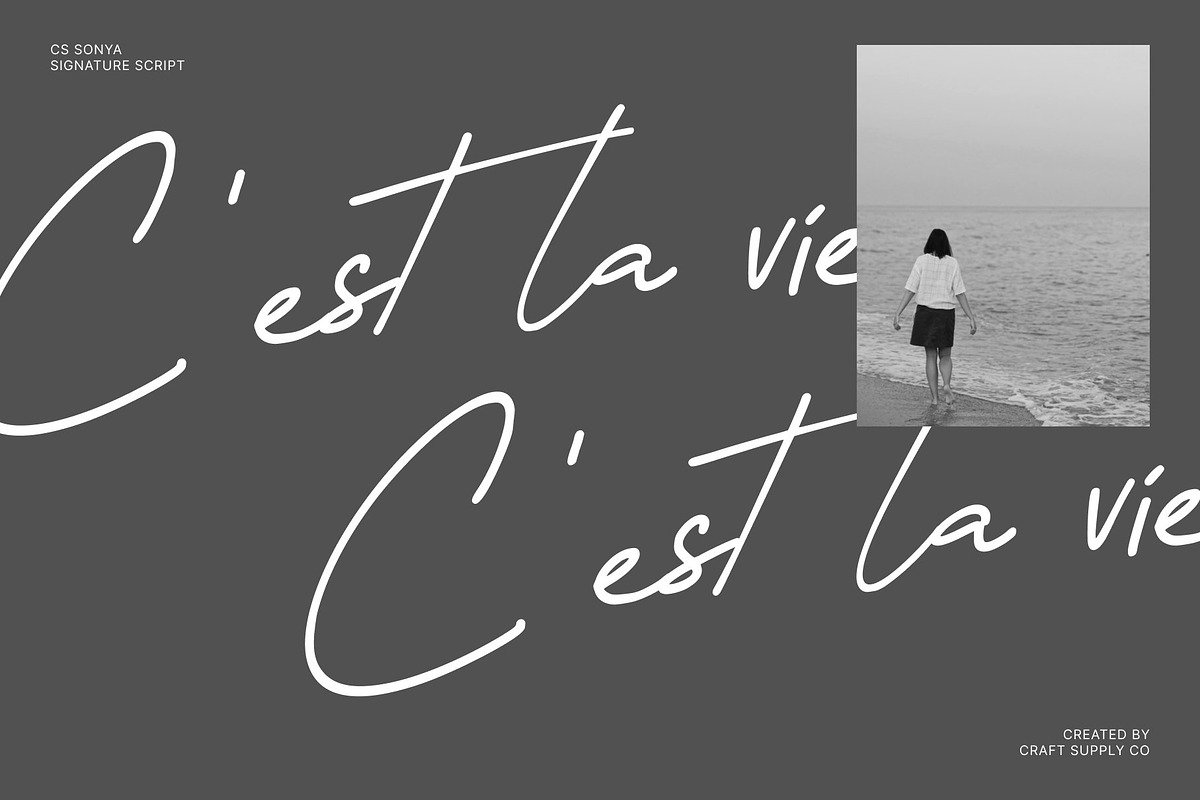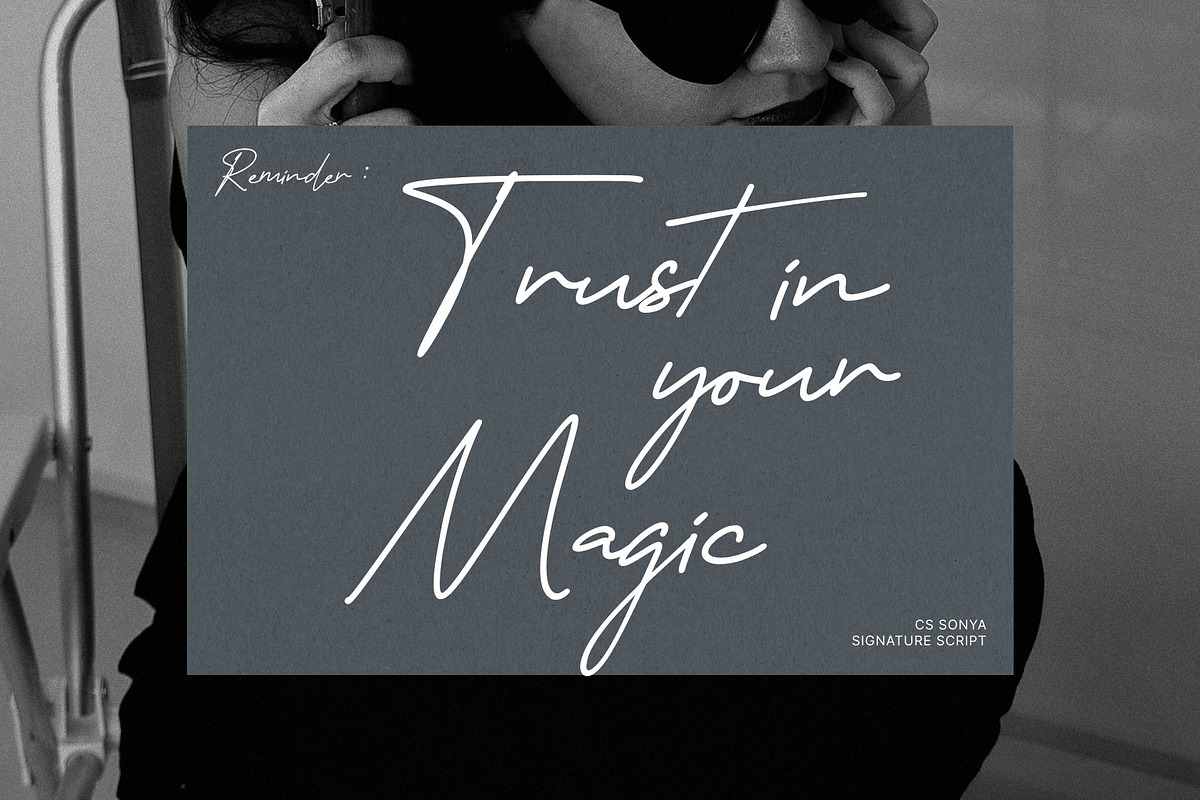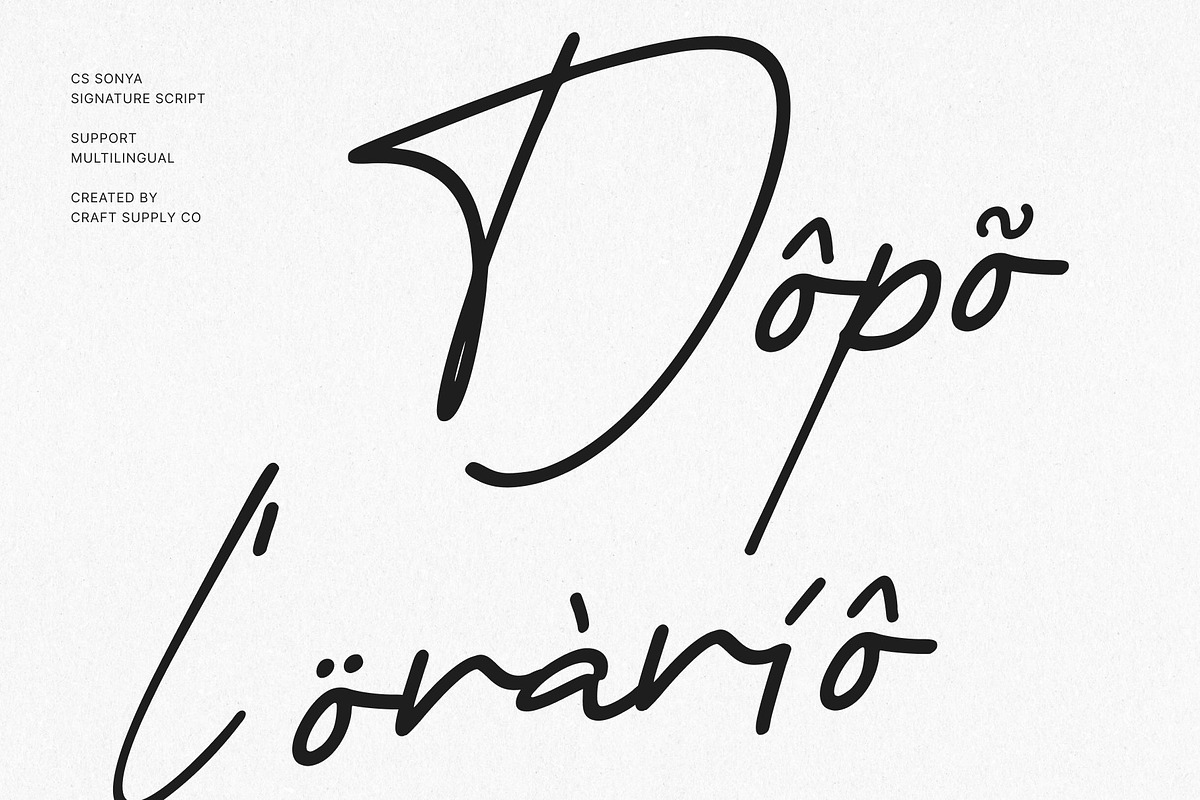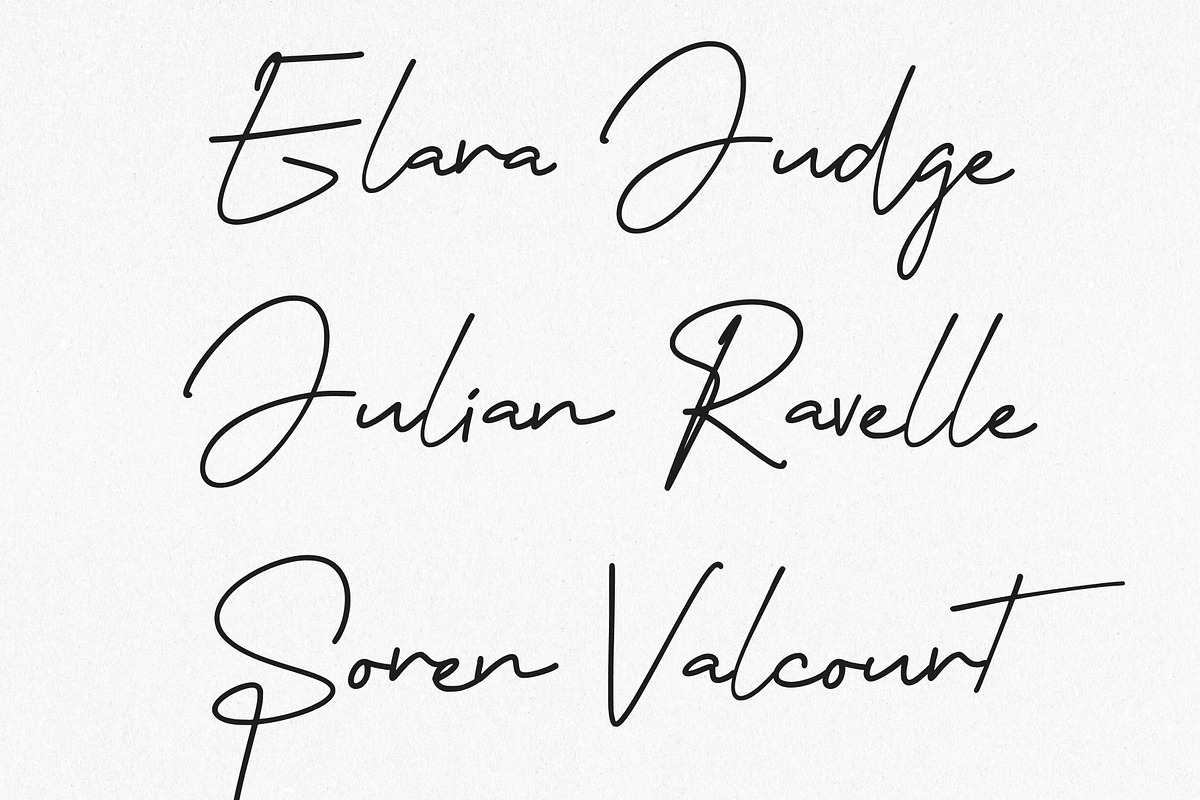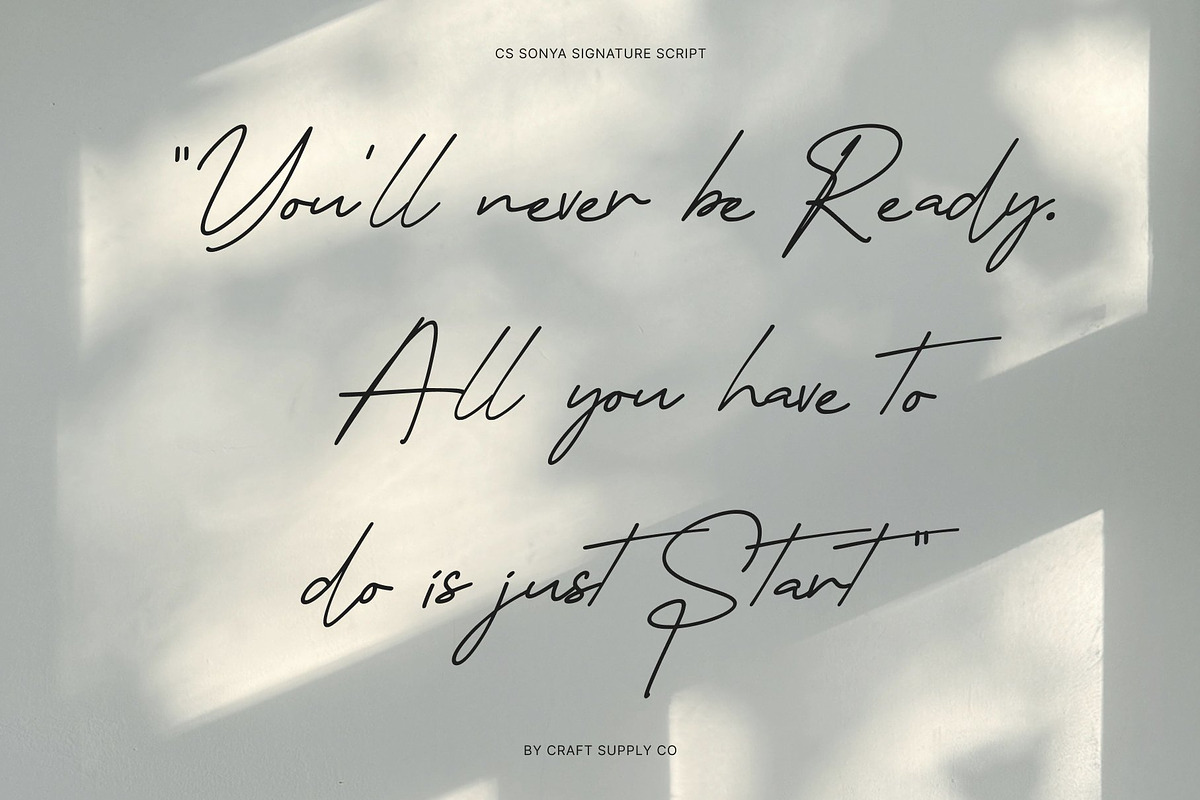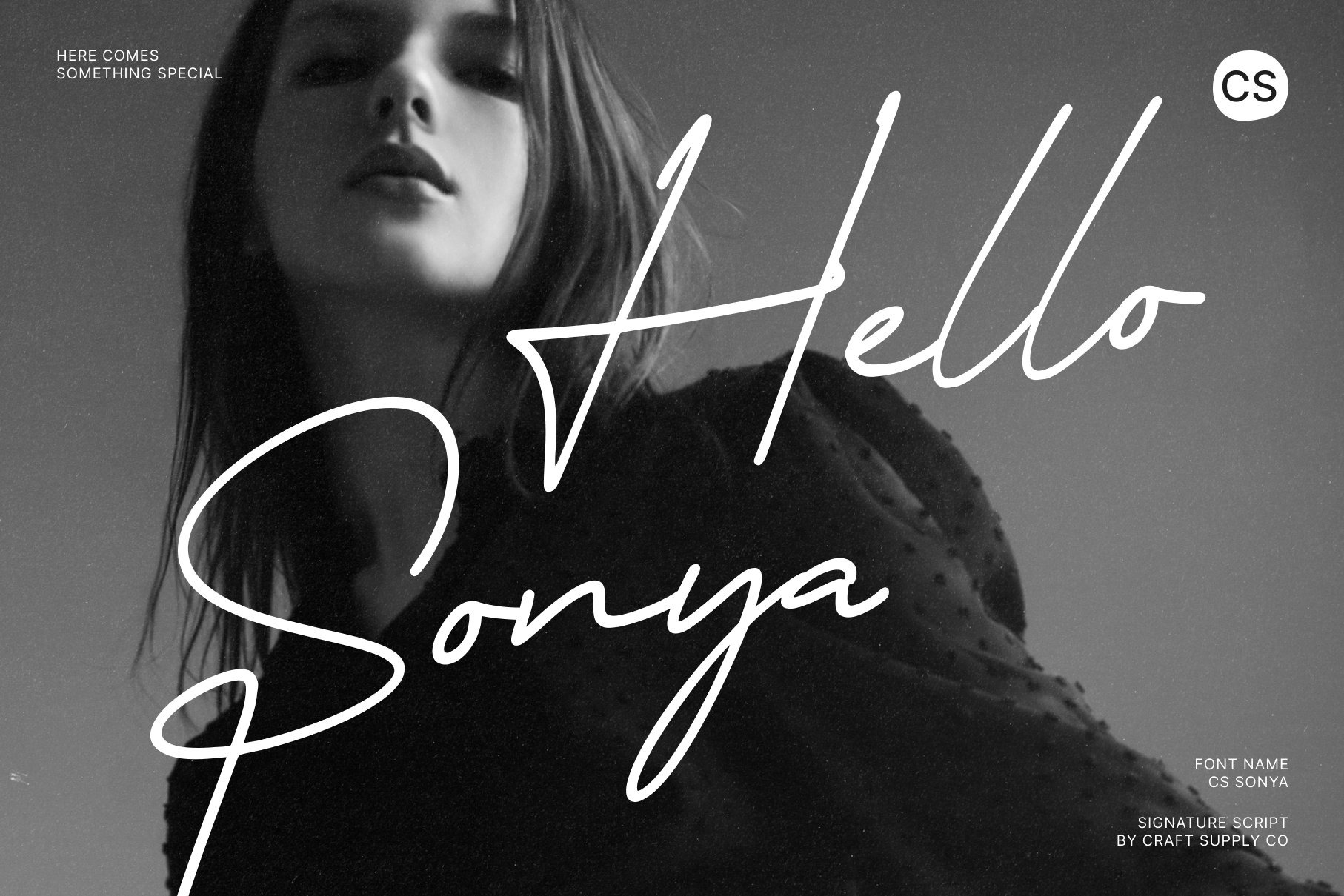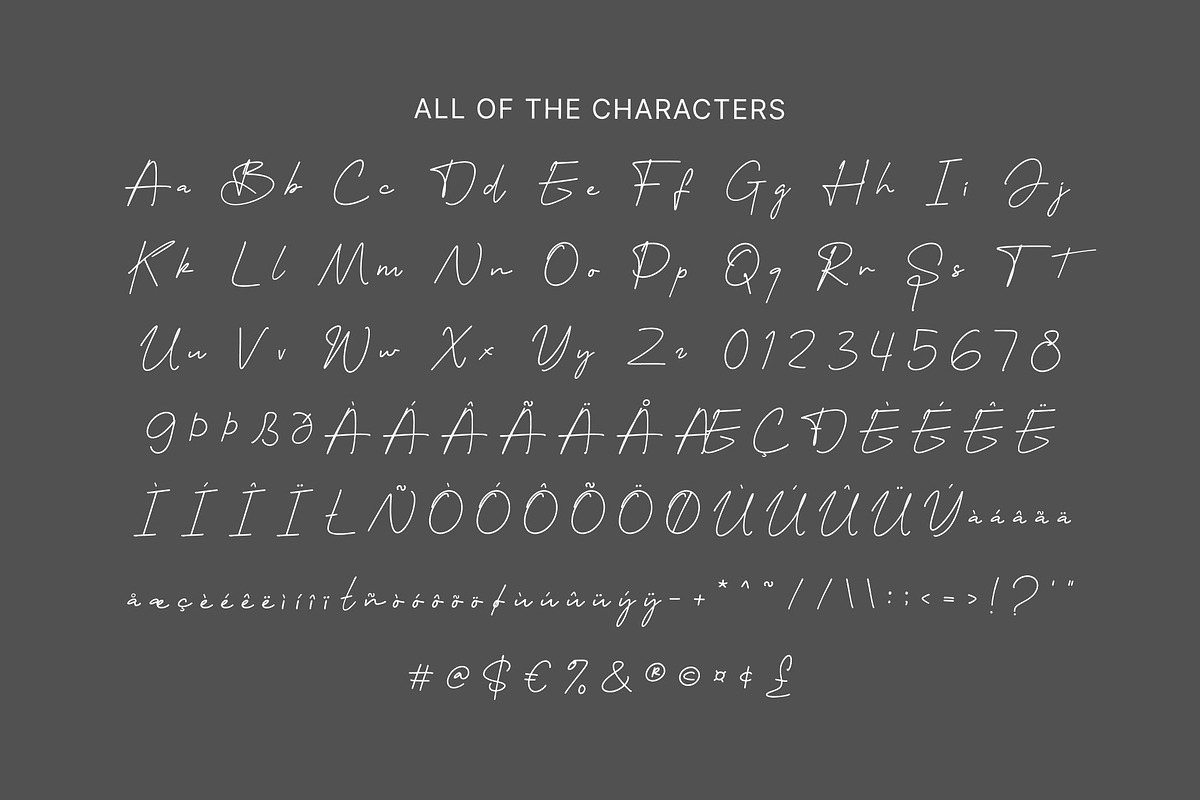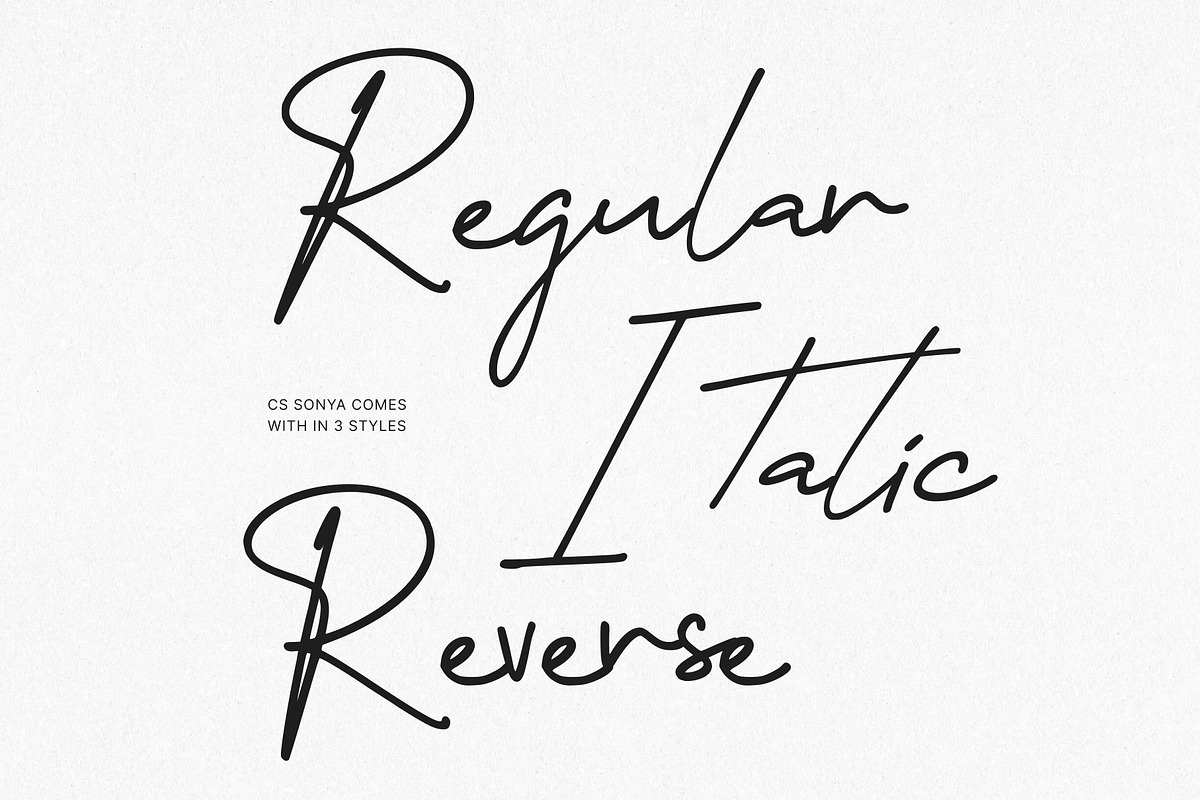
CS Sonya – Signature Font
CS Sonya – Personal Signature Style with Timeless Elegance
Signature Script Font with Handwritten Authenticity This is a signature script font designed to capture the personal and unique character of handwritten signatures. Inspired by natural pen movement and fluid writing, this font delivers an authentic handwritten feel that adds individuality and charm to any design. Its smooth flow and confident strokes create a refined presence, making perfect for projects that value personality and sophistication.
Natural Flow with Distinctive Character The letterforms of this font feature graceful connections and organic stroke variations that closely resemble real signature writing. Each character feels effortless and natural, creating a smooth rhythm that enhances visual harmony. This distinctive character allows the font to stand out as a personal mark, making designs feel exclusive, custom, and thoughtfully crafted.
Elegant Expression for High-End Design This font balances warmth and elegance, giving it a polished look suitable for premium applications. Its signature style conveys professionalism and luxury while maintaining a human touch. The font works beautifully as a focal element, adding authenticity and prestige to designs that aim to feel personal and exclusive.
Ideal for Logos, Branding, and Luxury Invitations Designed for upscale and personal applications, This font is ideal for logos, branding, luxury invitations, packaging, and fashion or beauty-related projects. Its signature-inspired form makes it especially suitable for personal brands, boutique businesses, weddings, and exclusive events.